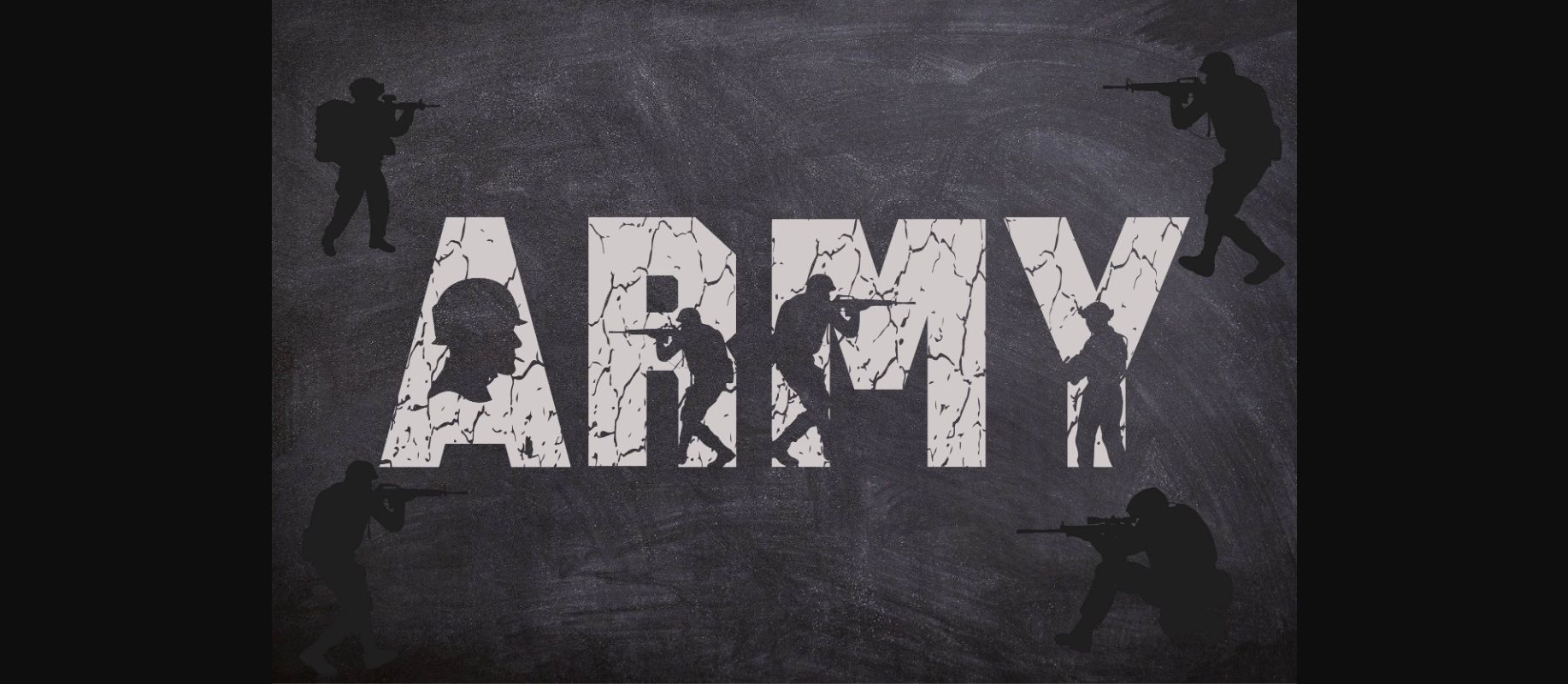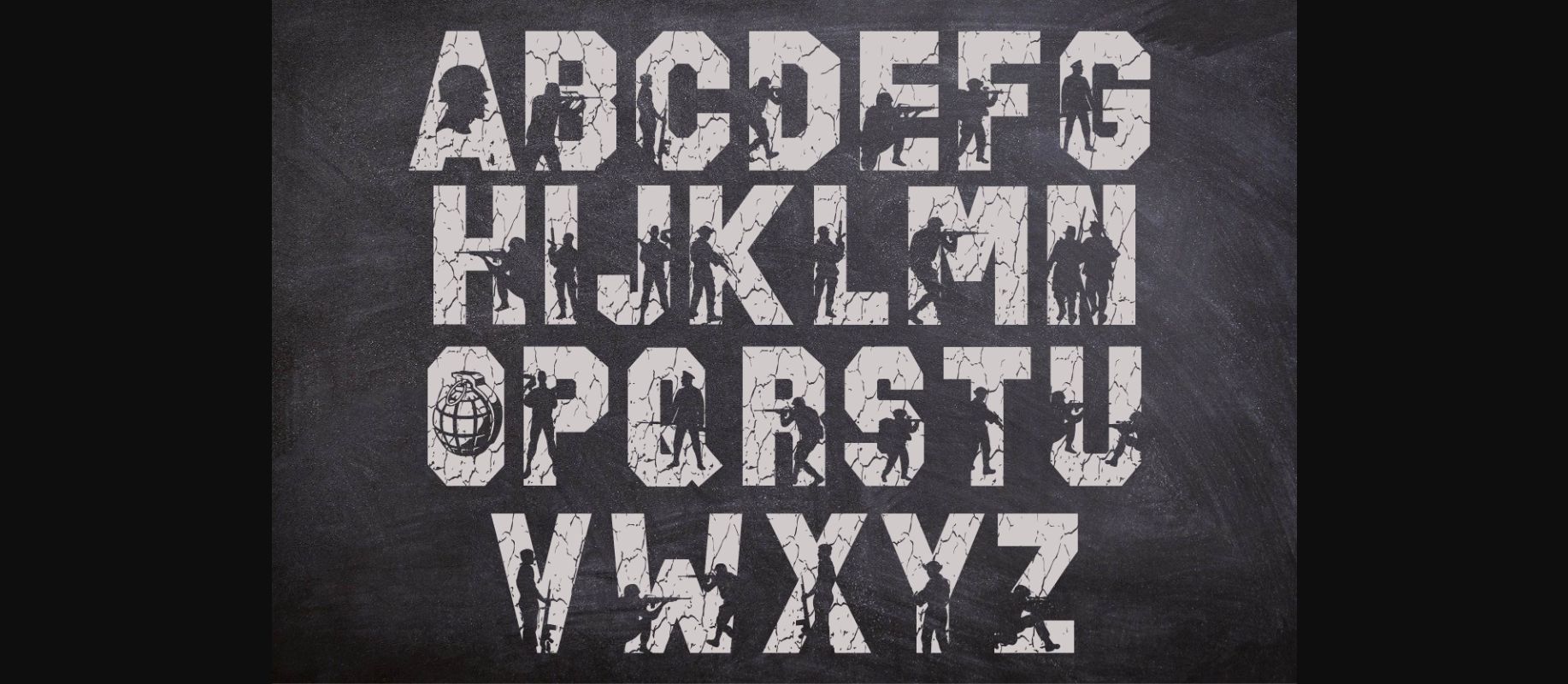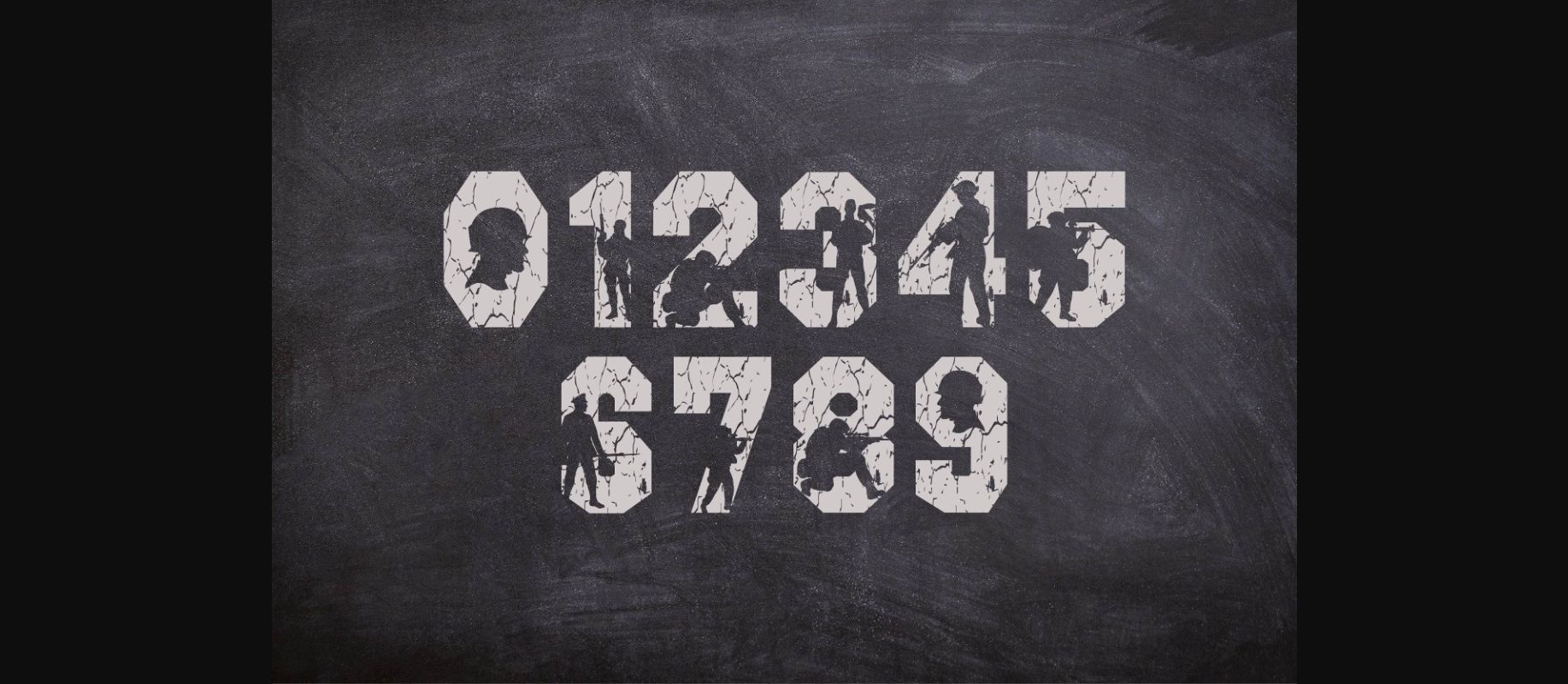
Army Font
About Army Font
Army is a cool and original-looking decorative font perfect for logotypes, headlines, corporate identity, brand identity, apparel industry, posters, music, movies, games, magazines, books, comics, cartoons, YouTube, Instagram, websites, and any of your creative projects.